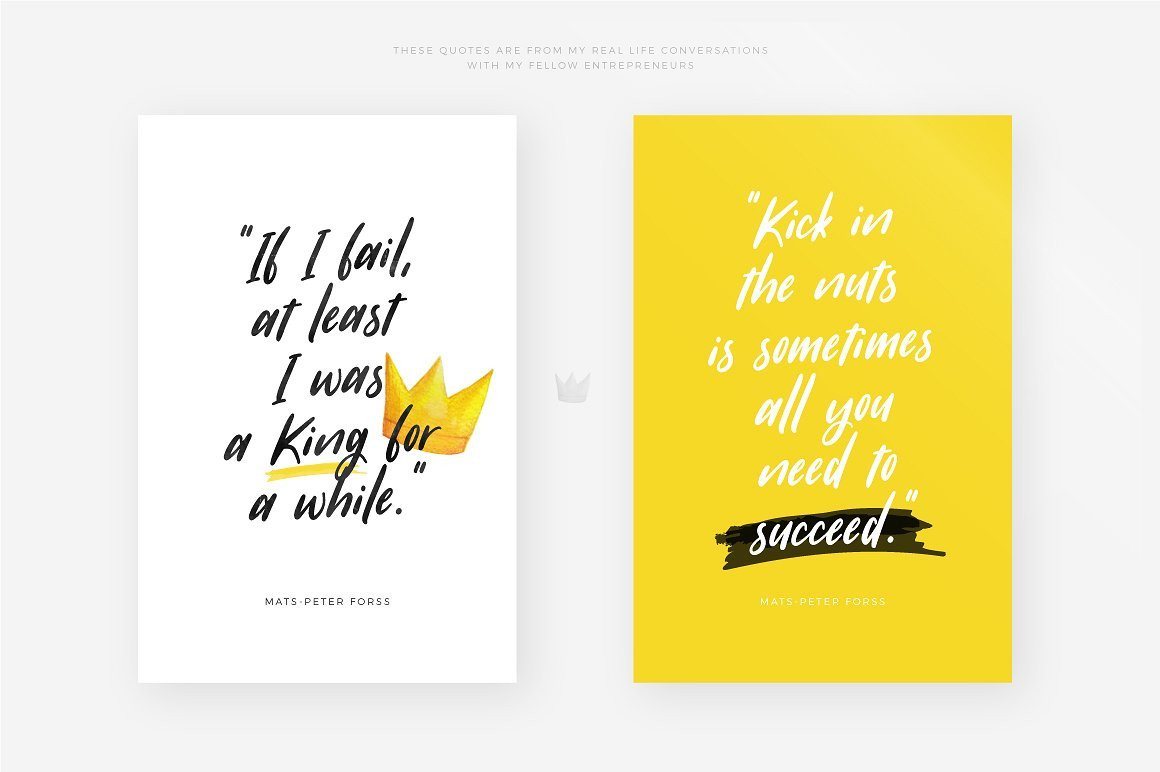
Free Sugarstyle Millenial Handwritten Font
Download and enjoy this free sugarstyle millenial – handwritten font. Cool typeface to showcase your designs in a modern way. Pixelify has created this amazing and beautiful typeface. Amaze your fellow designers and create stunning designs with this cool font.